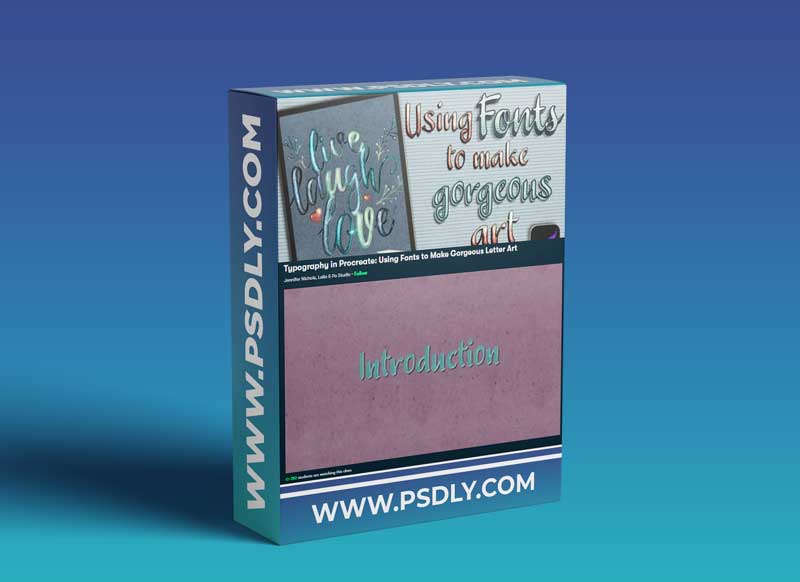
Typography in Procreate: Using Fonts to Make Gorgeous Letter Art
I admire all the calligraphers and hand-letterers out there so much but I just can’t bring myself to practice enough to get good at those skills. Procreate is so amazing and with it’s ability to use fonts these days so I want to show you can get similar looks to hand-lettered and scripted art just with fonts!
We will explore some free fonts sites and learn how to install them. Next, I will walk you though a variety of styles that can be combined in various ways to create dozens and dozens of different looks. Finally, I will guide you through a complete illustration from start to finish to create this beautiful piece below. As always, I include brushes and palettes with class